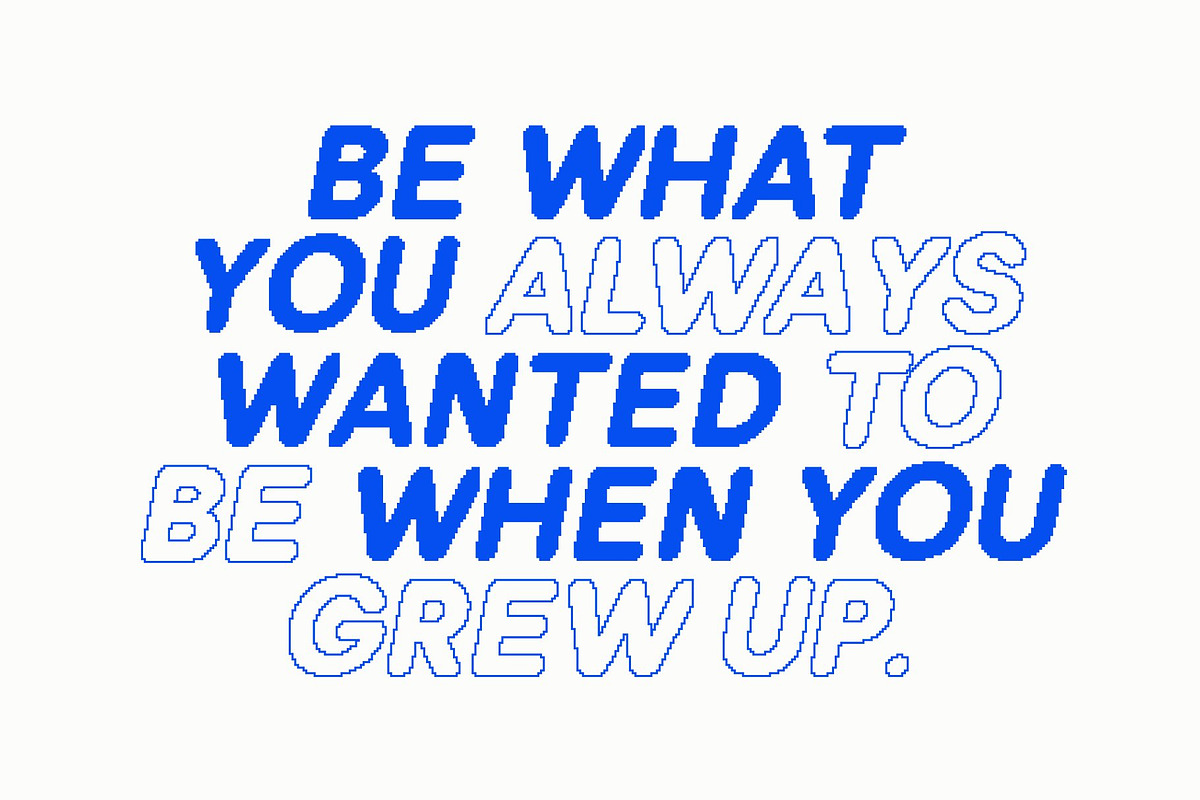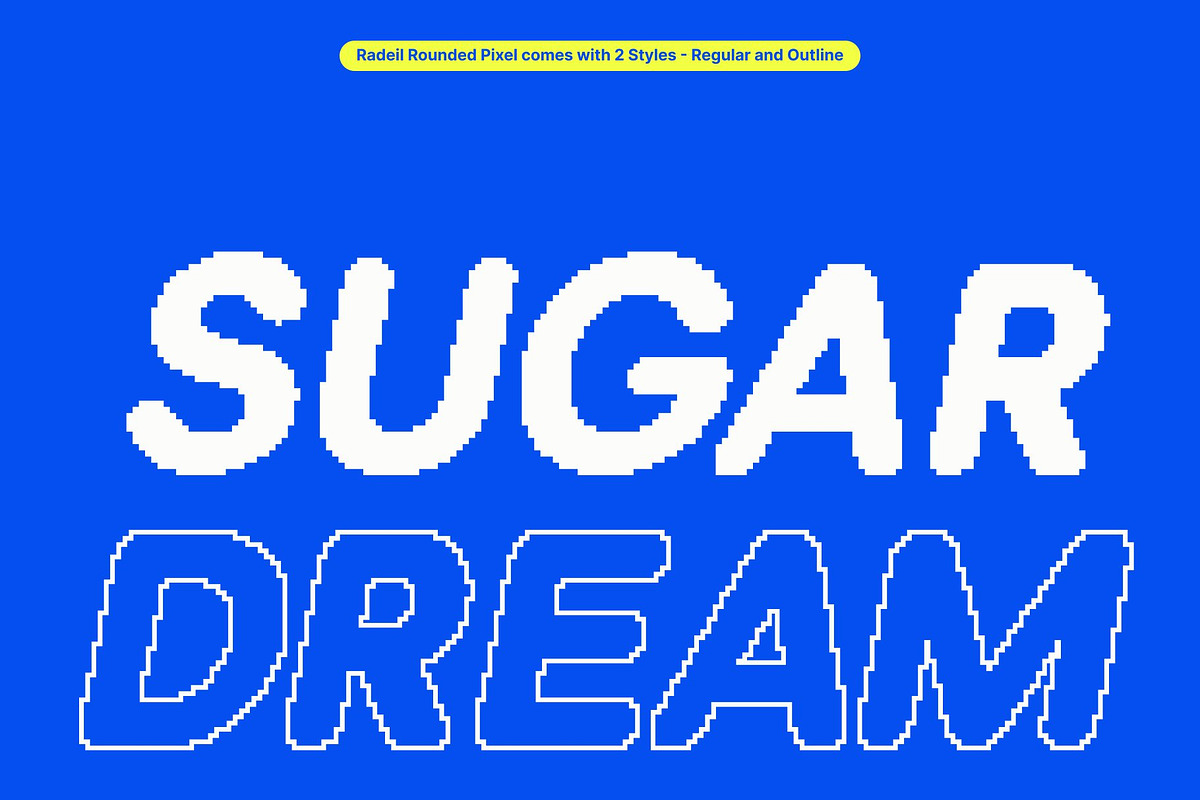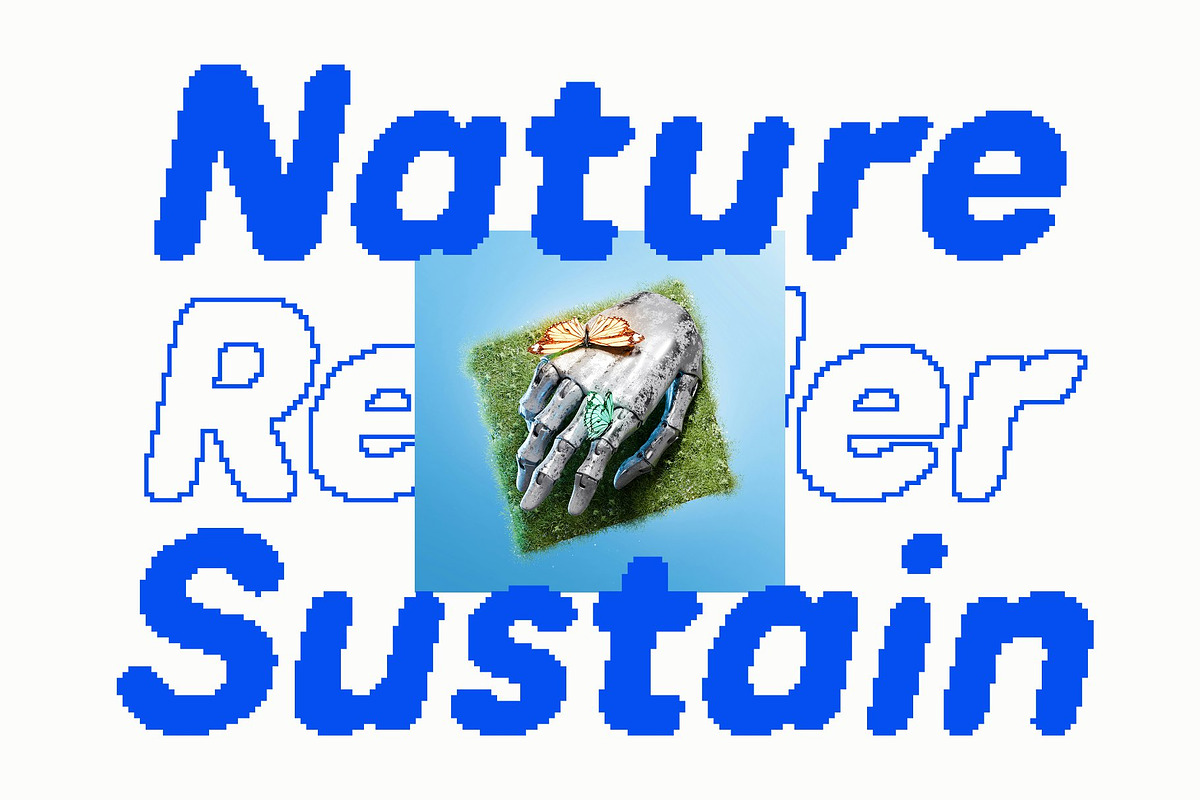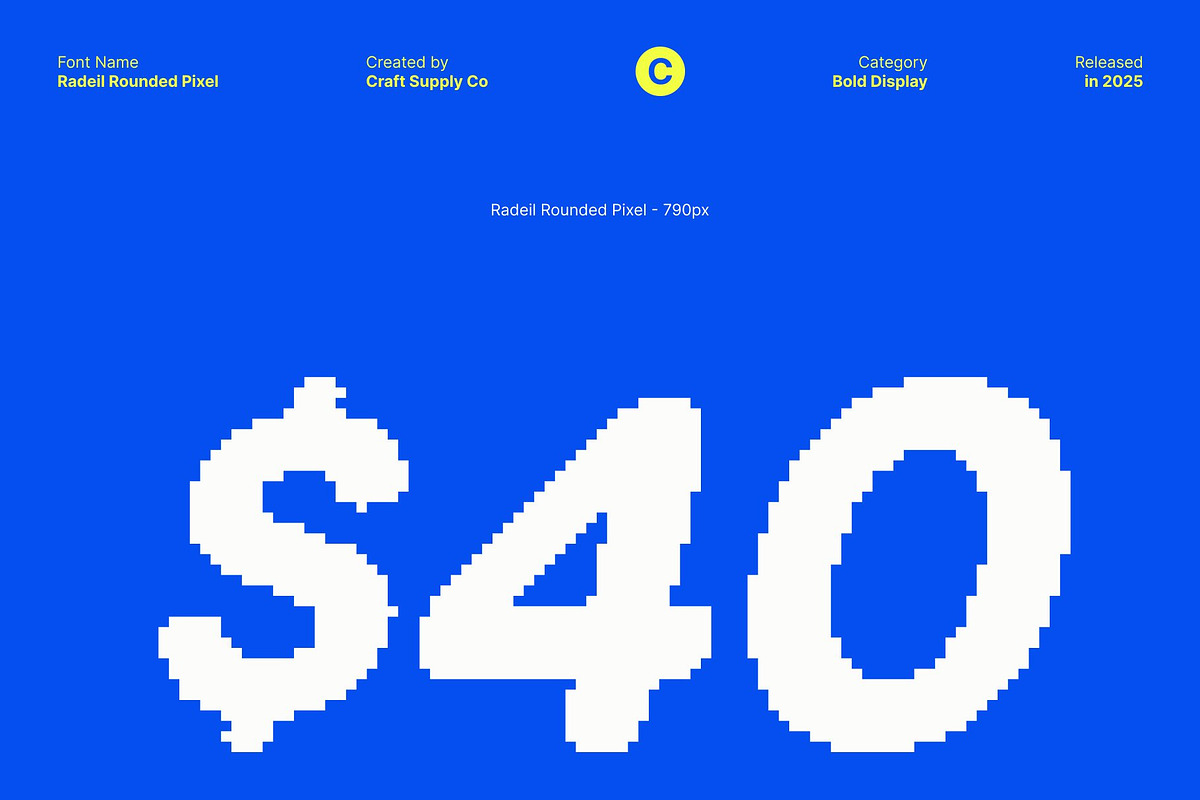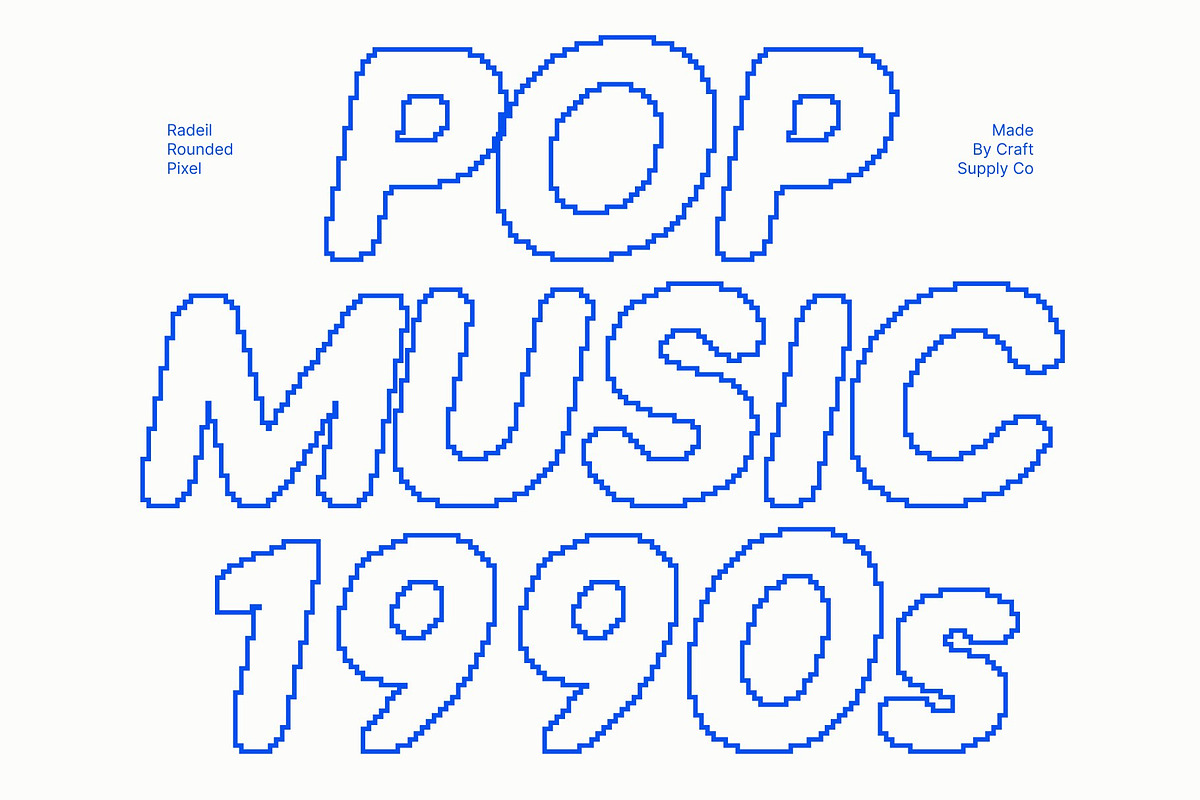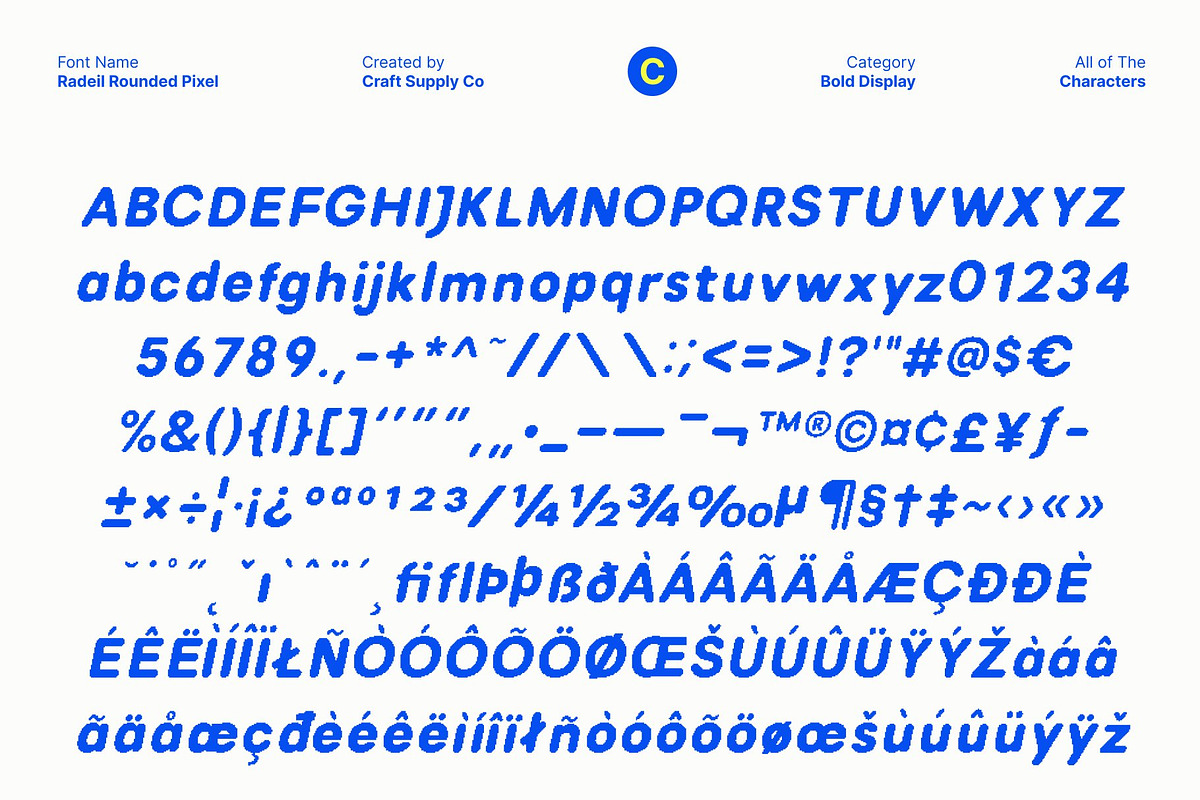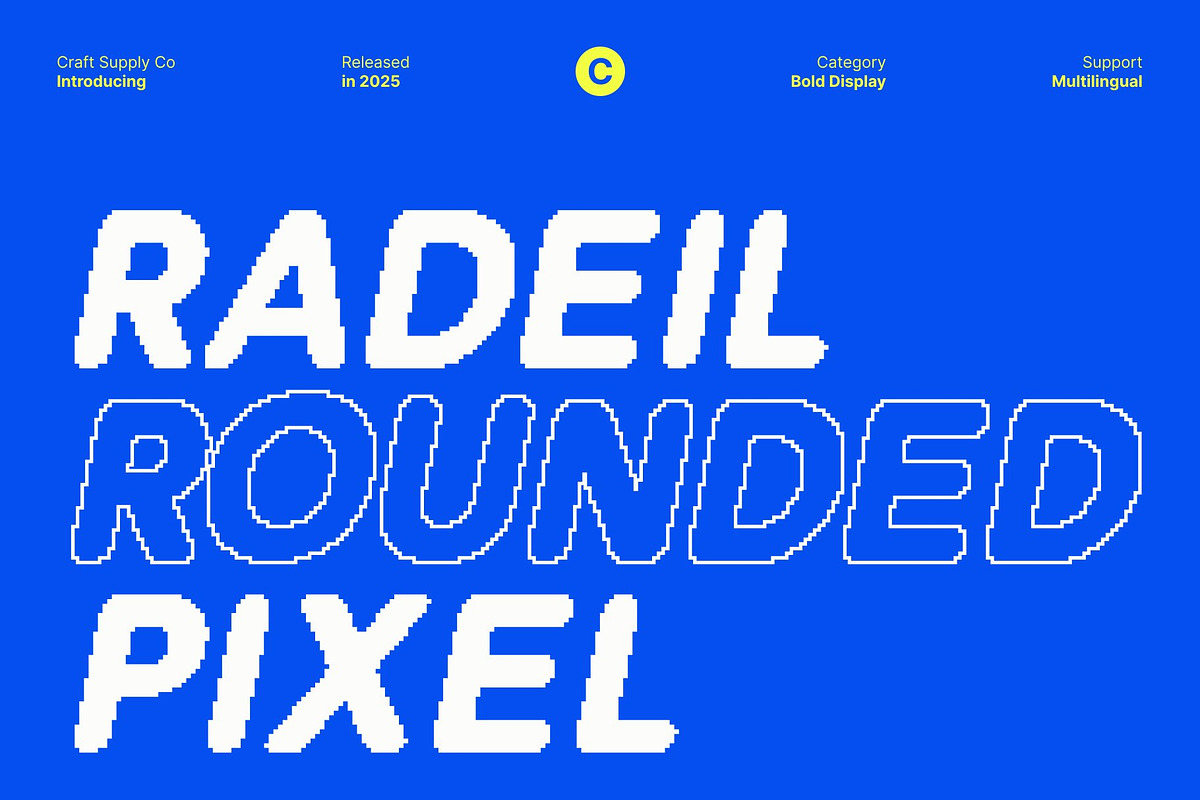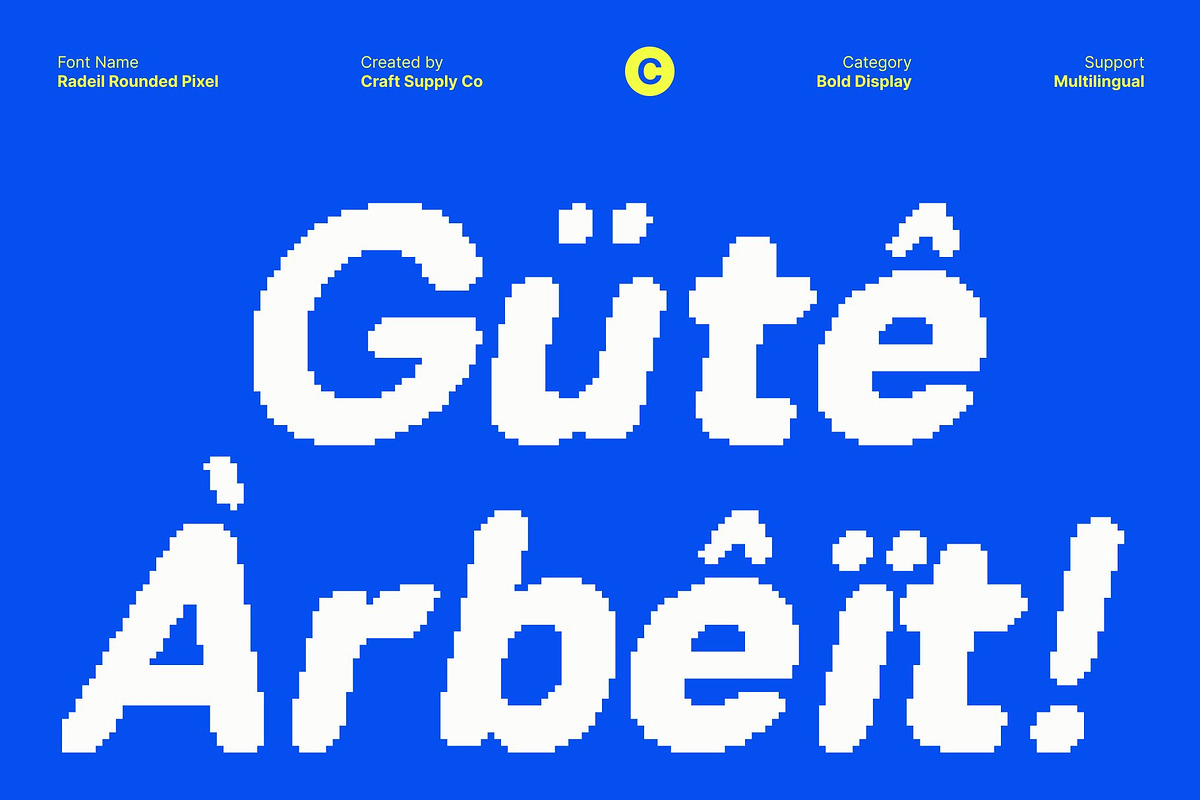
Radeil Rounded Pixel
Radeil Rounded Pixel – Friendly Rounded Display Font with Digital Pixel Charm
Playful and Approachable Typeface This is a cheerful and lighthearted rounded display font designed to convey friendliness and modernity. Its soft curves and approachable shapes make every character feel welcoming, giving your designs a lively and engaging personality. Ideal for youth-focused projects, posters, and playful branding, this font instantly communicates warmth and charm.
Rounded Shapes for a Modern, Friendly Impression The smooth, rounded forms of this font create a contemporary and inviting look. The typeface balances readability with personality, making it perfect for display use in vibrant compositions. Its rounded design conveys approachability and energy, ensuring your headlines, logos, and packaging designs feel fresh, modern, and memorable.
Pixel Texture Adds Digital Style and Personality Enhanced with a subtle pixel effect, this font introduces a digital aesthetic that complements its playful curves. The pixel texture gives each character a unique, modern personality, bridging traditional rounded display style with contemporary digital design. This combination adds visual interest and makes your projects feel current and innovative.
Perfect for Youth Branding, Posters, Packaging, and Creative Projects This font excels in applications that need personality, energy, and a modern touch. From youth-oriented branding and lively packaging to eye-catching posters and editorial layouts, this font adds a friendly, digital-infused aesthetic to any creative project.